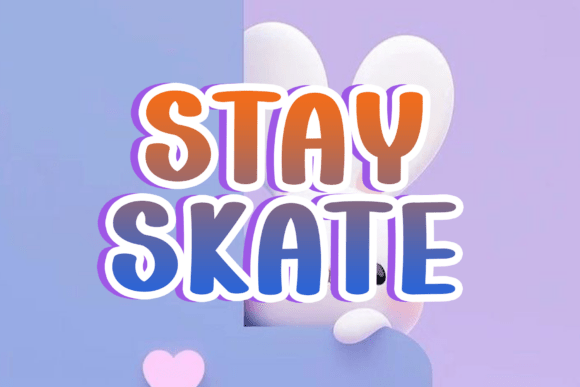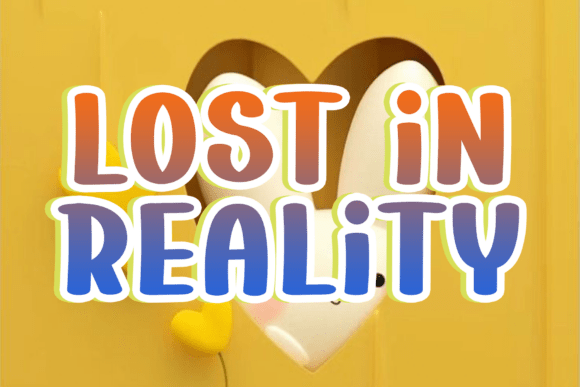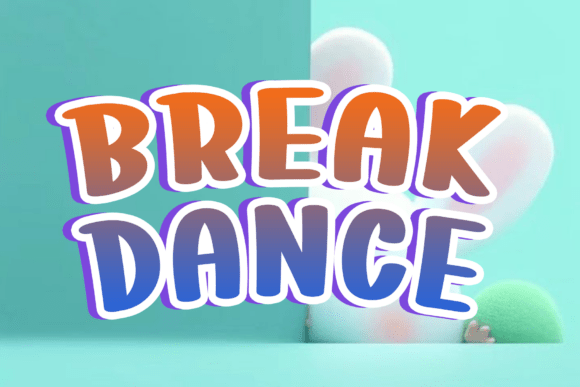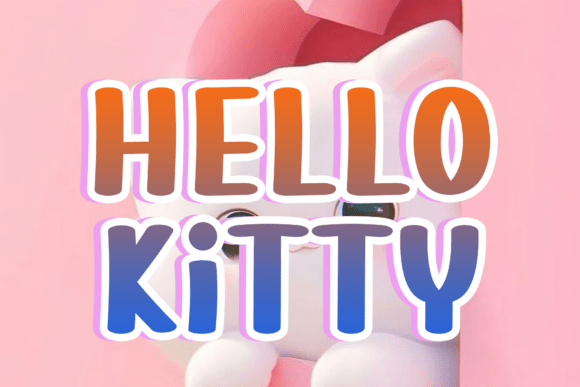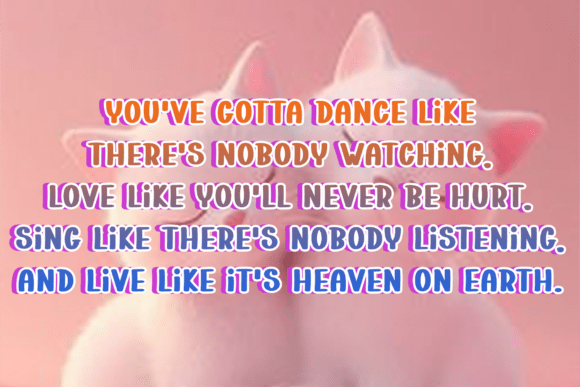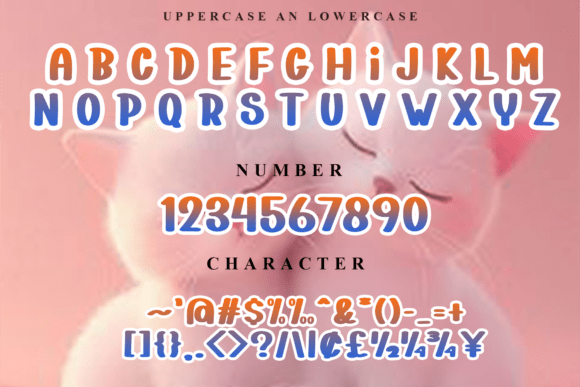
The Perfect Font to Bring Your Creativity to Life
Have you ever been in a creative flow, pouring your heart and soul into a design project, only to realize that the right font can make all the difference? I know I have. There’s something magical about finding that perfect font that brings your vision to life. For designers, the hunt for the perfect font is a never-ending quest, and it’s what makes our work so exciting.
Enter Badrips Font, a beautiful and eye-catching typeface designed with a soft, unique touch. With its distinctive strokes, Badrips Font adds a special character to any design project, making it meaningful and versatile for future use. Whether you’re working on a logo, a brochure, or a craft project, Badrips Font is the perfect addition to your creative toolkit.
Badrips Font Key Features
- Font Family: Badrips Font is a unique, hand-drawn font family with multiple styles and weights.
- Character Set: Includes a wide range of characters, including Latin, Cyrillic, and Greek alphabets, as well as punctuation and symbols.
- Size: The font family includes multiple weights, ranging from 100 to 900, providing flexibility for various design applications.
- Unique Characteristics: Features a distinctive, hand-drawn style with subtle imperfections, adding a touch of personality to any design.
Badrips Font Review
When I first saw Badrips Font, I was immediately drawn to its playful and quirky vibe. ✨ The font’s unique blend of modern and vintage elements makes it perfect for designers looking to add some personality to their projects.
- ✨ Unique and versatile: Badrips Font can be used in a variety of contexts, from logos and branding to digital products and editorial content.
- ✨ Highly customizable: The font includes a range of weights and styles, making it easy to adjust to suit your design needs.
- ✨ Friendly and approachable: The font’s rounded edges and soft lines make it feel approachable and welcoming.
However, I do have some reservations:
- ⚠️ Limited legibility at small sizes: While the font looks great at larger sizes, it can become difficult to read at smaller sizes.
- ⚠️ May not be suitable for formal or professional contexts: Badrips Font’s playful vibe may not be suitable for more formal or professional projects.
Overall, I think Badrips Font is a great choice for designers who want to add some personality to their projects. While it may have some limitations, its unique charm and versatility make it a great addition to any design toolkit.
Badrips Font is a versatile font that can be used for a variety of purposes, including:
1. Branding and logo design
2. Social media graphics
3. Business cards and brochures
4. Web design
Remember to adjust the font size and color to ensure readability and consistency throughout your design.
Alternatives to Badrips Font
The Great Vibes Font is a modern script font that works well for creating a friendly and approachable atmosphere. It’s ideal for use in invitations, greeting cards, and other applications where a casual and relaxed tone is desired.
Compared to Badrips Font, Great Vibes Font has a more fluid and cursive feel, making it suitable for longer text passages. However, it may not be as versatile for use in corporate or formal settings.
The Carolyna Pro Font is a luxurious and elegant script font that’s perfect for creating high-end designs. It’s ideal for use in branding, advertising, and other applications where sophistication and glamour are required.